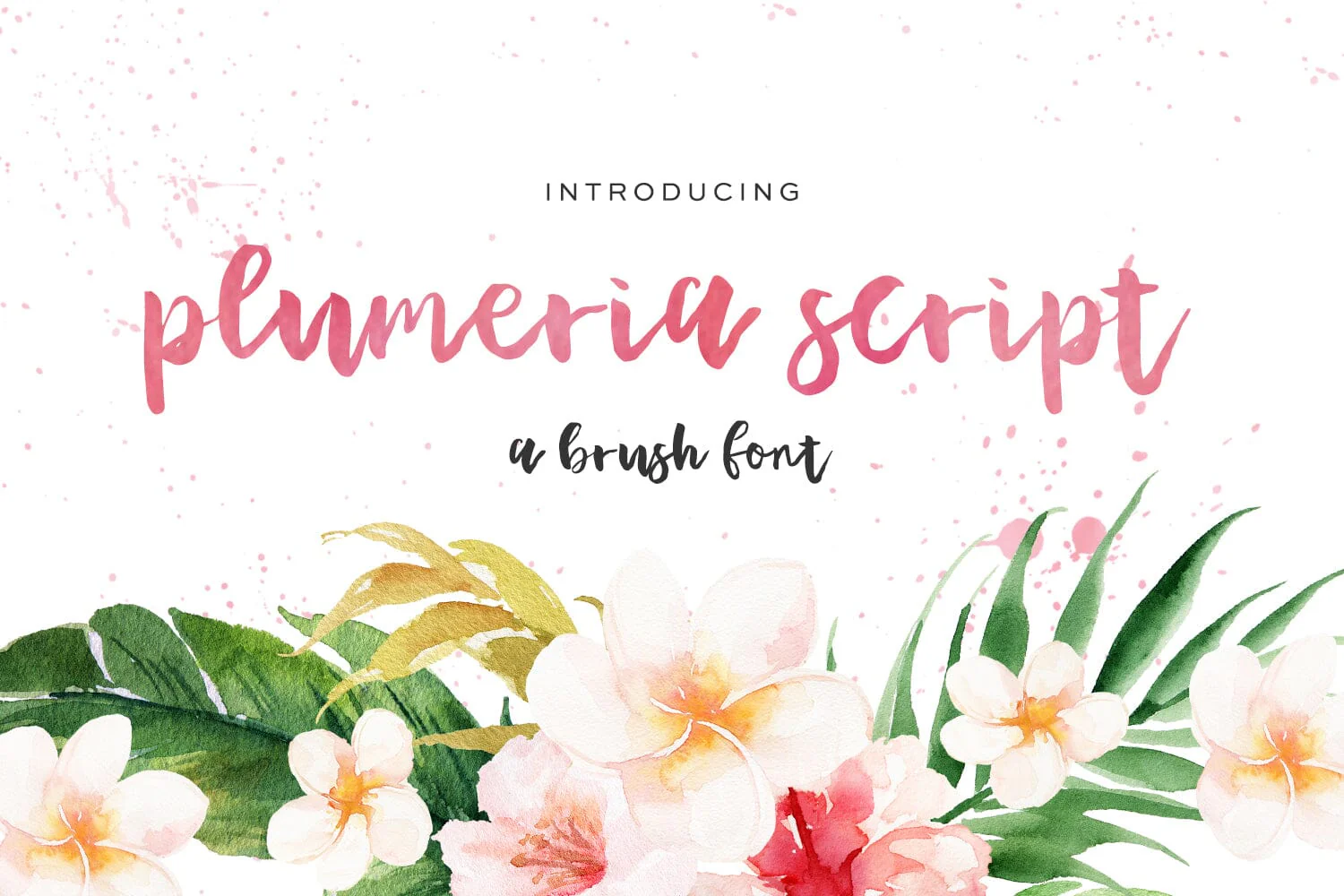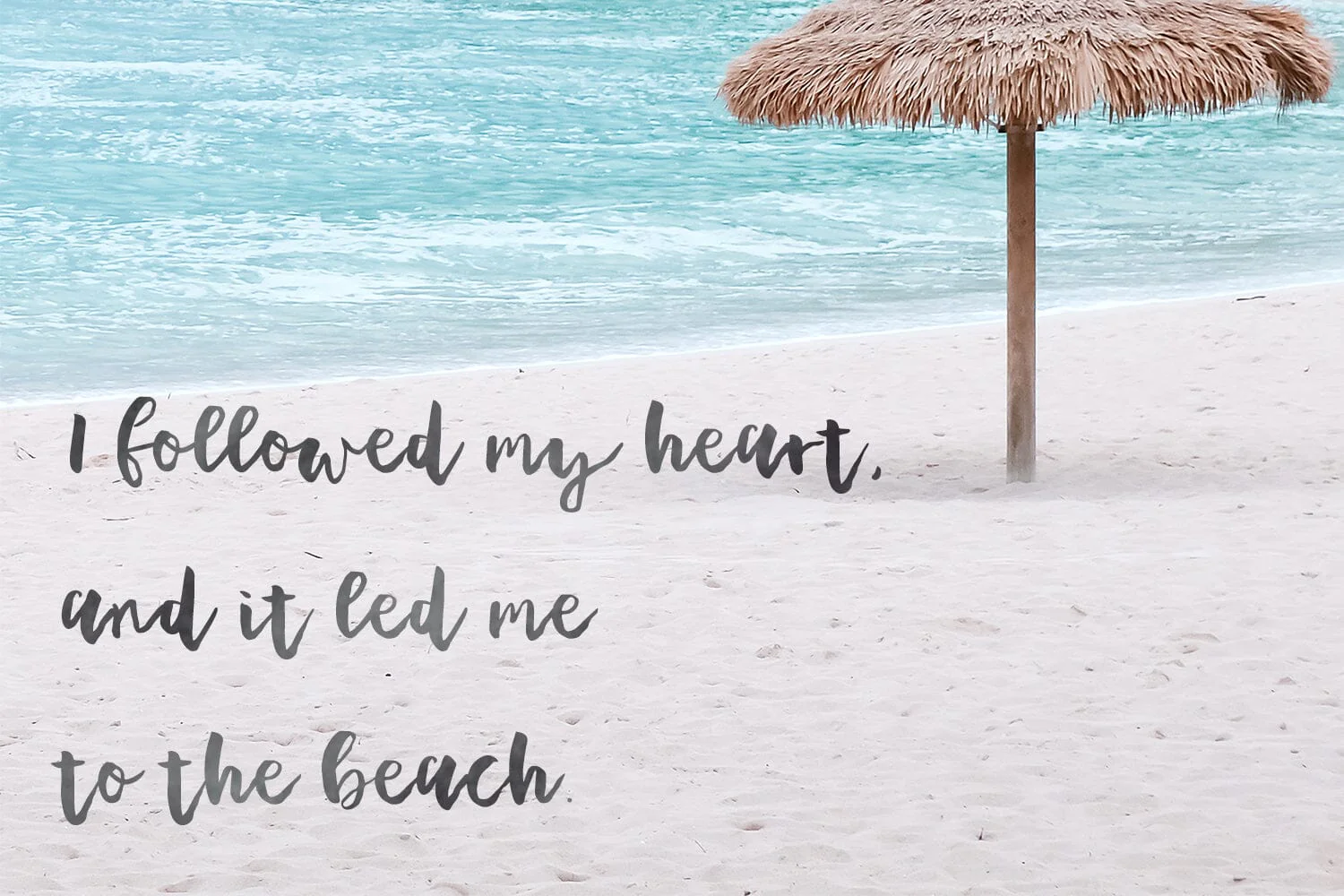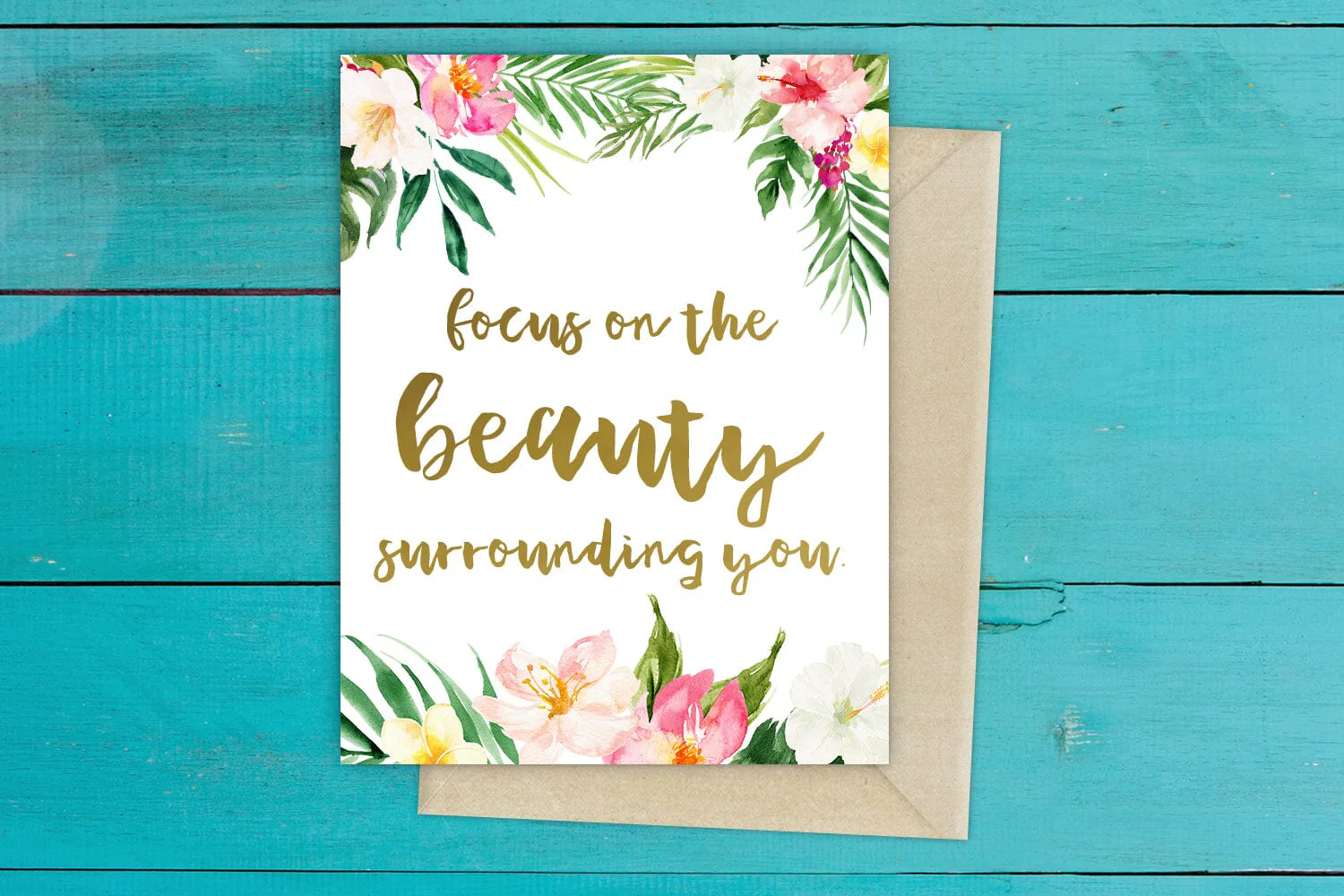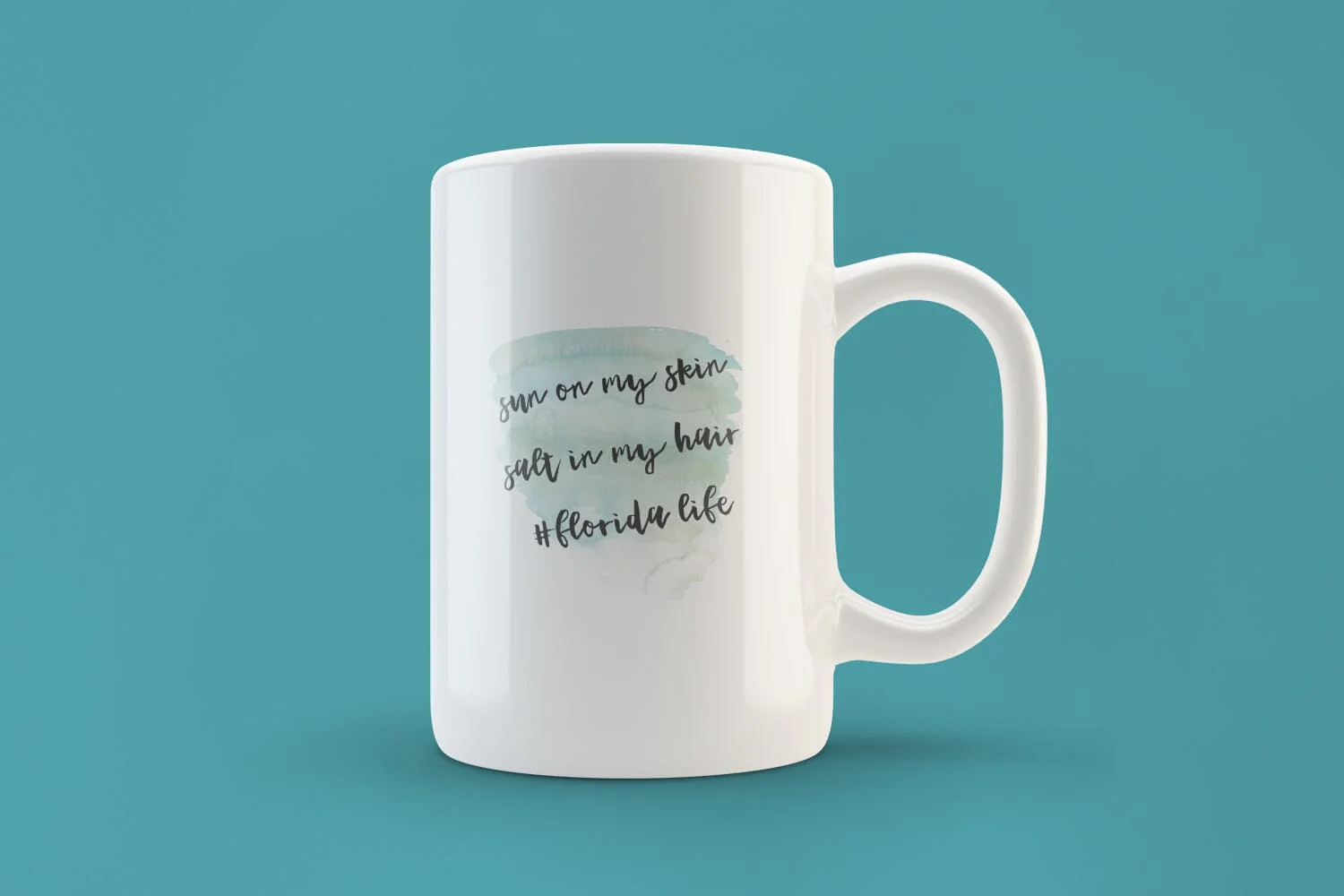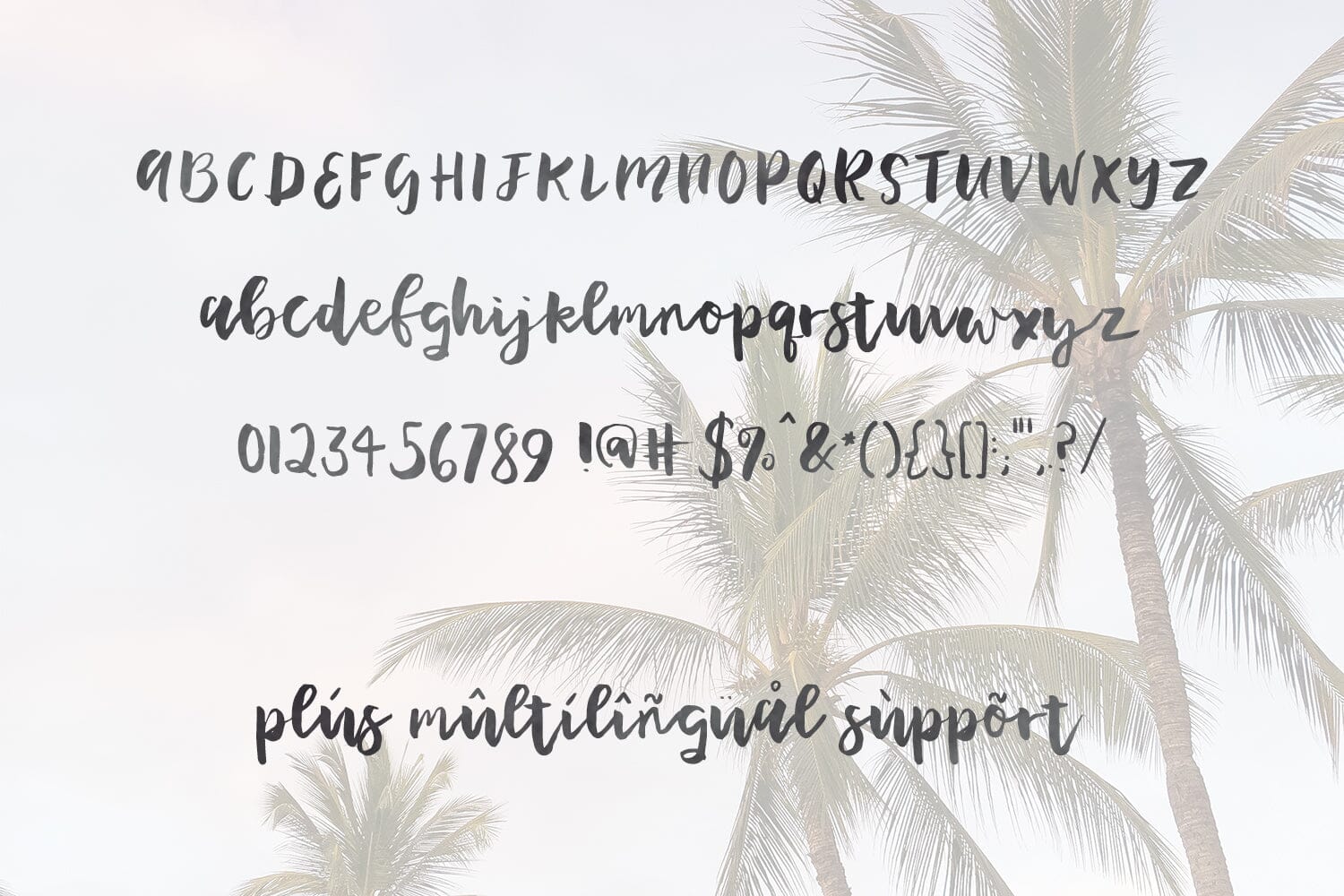
Plumeria Brush Script Font
Introducing Plumeria Script, a brush font.
A little funky & irregular, Plumeria Script is still beautiful & unique like the blooms on each plant.  Plumeria Script would be perfect for greeting cards, edgy branding projects, t-shirts & quote graphics.
Plumeria Script includes Western European language support.
Introducing Plumeria Script, a brush font.
A little funky & irregular, Plumeria Script is still beautiful & unique like the blooms on each plant.  Plumeria Script would be perfect for greeting cards, edgy branding projects, t-shirts & quote graphics.
Plumeria Script includes Western European language support.